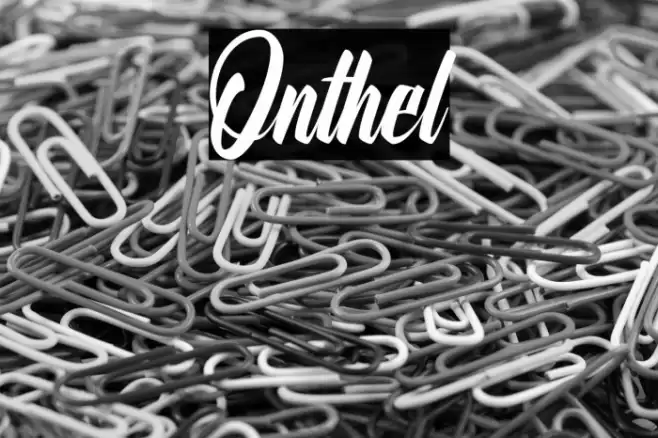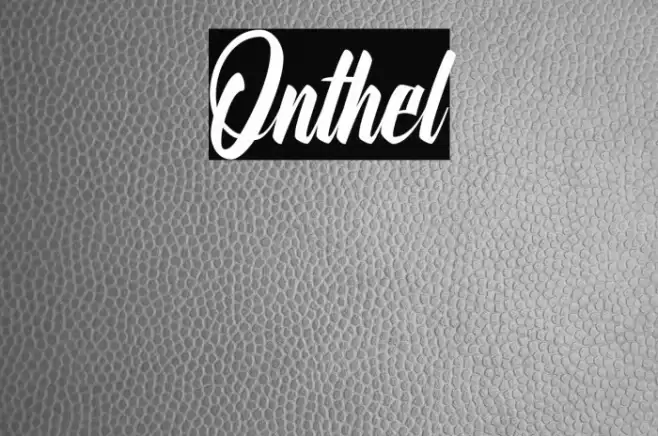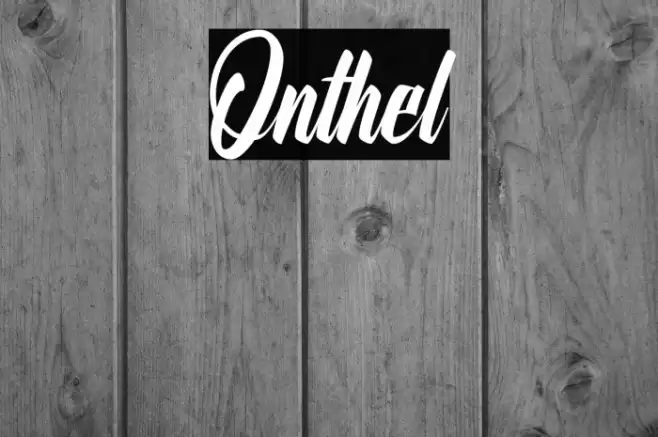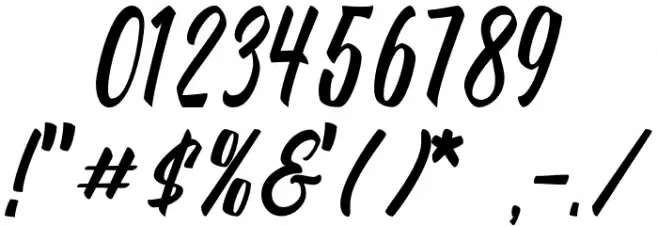
Onthel Font
Onthel Description
This font exhibits a bold and dynamic script style, characterized by its fluid and connected letterforms. The uppercase letters are particularly striking, with sweeping curves and a sense of motion that suggests a handwritten quality. The lowercase letters maintain this fluidity, offering a harmonious balance between elegance and readability. The numerals are consistent with the overall style, featuring similar curves and boldness. Special characters are well-integrated, maintaining the cohesive aesthetic of the font. The overall impression is one of energy and expressiveness, making it suitable for creative and impactful design projects.
A bold, dynamic script font with fluid, connected letterforms and a handwritten feel from Uncategorized fonts.